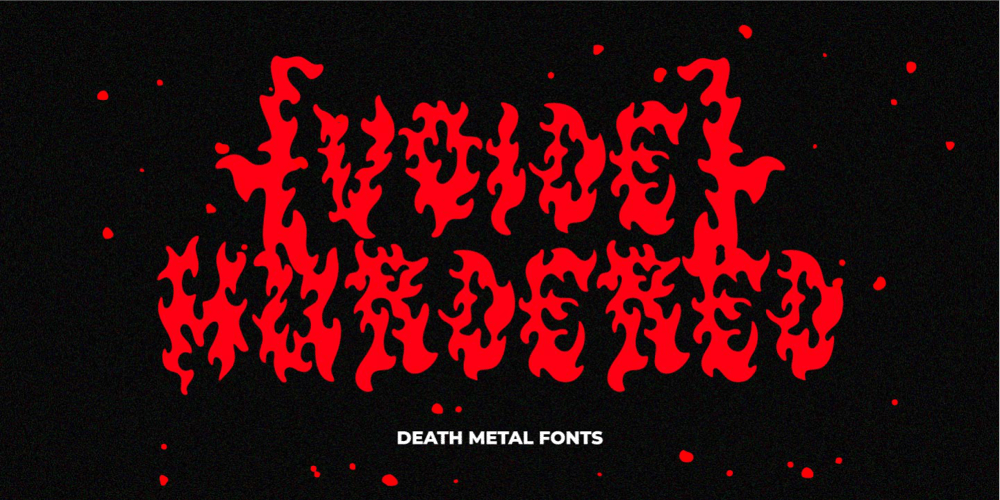
TF Voide Murdered Font Family was designed by Miftahul Habib and published by Teenage Foundry. TF Voide Murdered contains 1 styles and family package options. TF Voide Murdered – Death Metal Font. Our Death Metal Font is the perfect tool to amplify the raw energy and intensity of your designs. Crafted with meticulous attention to detail, this font embodies the essence of heaviness, chaos, and rebellion.Featuring jagged edges, sharp contours, and intricate letterforms, our Death Metal Font exudes a ferocious brutality that will leave a lasting impact on your audience. Each character is meticulously designed to evoke a sense of darkness and aggression, making it an ideal choice for album covers, band logos, merchandise, and more.Features: Uppercase, Lowercase, Numeral, Opentype Features, Punctuation & Multilingual.For any questions please contact me 🙂Thanks!